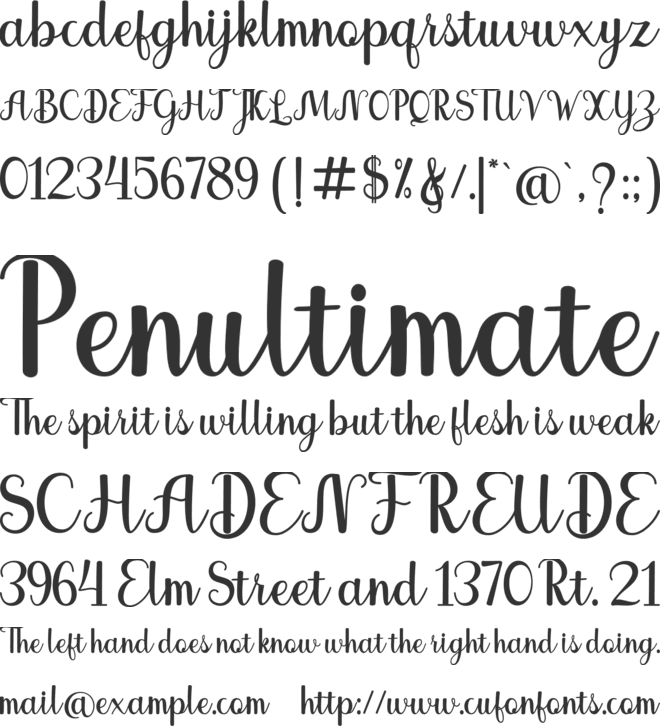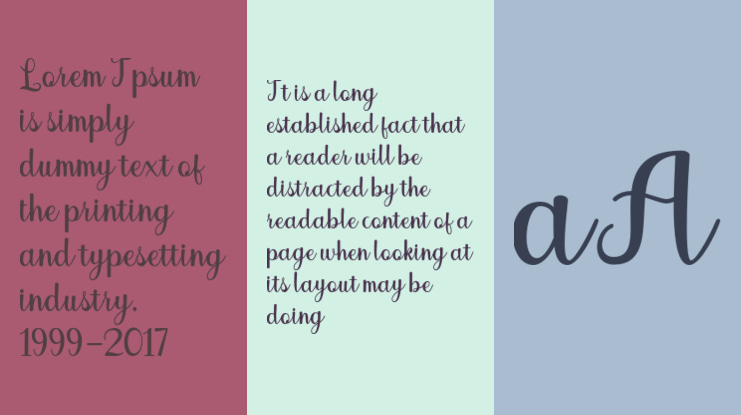
Auristela Font
Introducing Auristela, a contemporary casual calligraphy font imbued with a lettering vibe. Its essence exudes a relaxed and enjoyable aura. This font is ideal for casual brand identity, food and beverage packaging, social media branding, logos, vintage and retro themes, and is an absolute must-have. Convey your messages creatively with this font, doubling the joy in your designs!